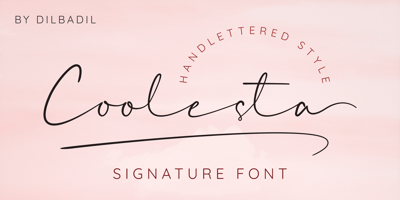
Coolesta Font Family was designed by Abdillah Abdi and published by Dilbadil. Coolesta contains 1 styles and family package options. Hello, let me introduce my new signature font Coolesta. Made with great effort to produce an elegant and modern style. This font is made like handwriting so it is suitable for branding, logos, business cards, photographs, wedding invitations, quotes, clothes, coffee and others.What did you get?By providing OpenType facilities you will get:– Alternates Ss01, Ss02, Ss03, Ss04, Ss05– Ligatures– Multilingual Support– Swashes– Multilingual’s alternate